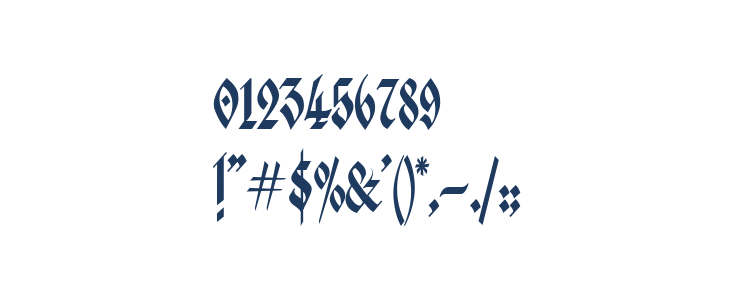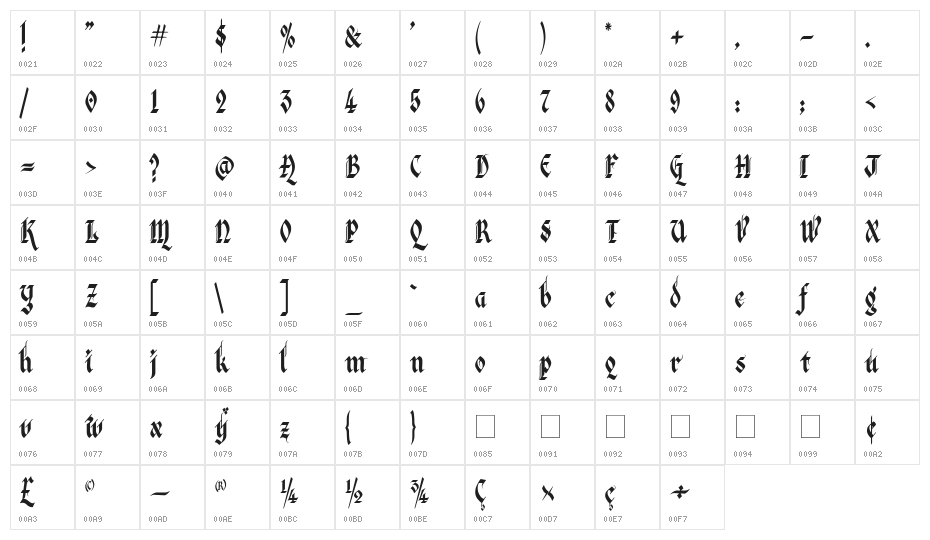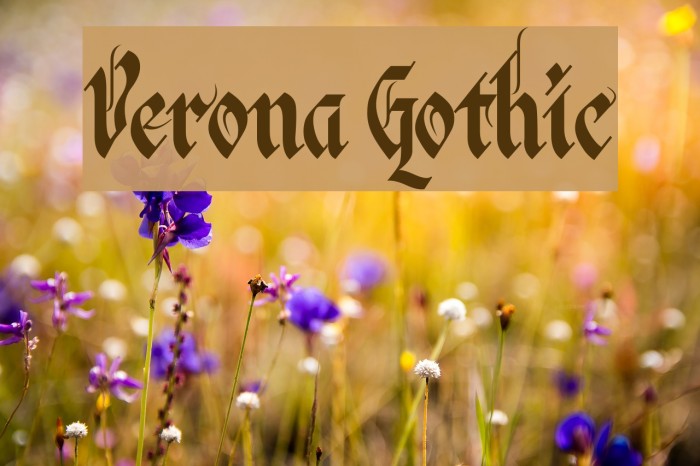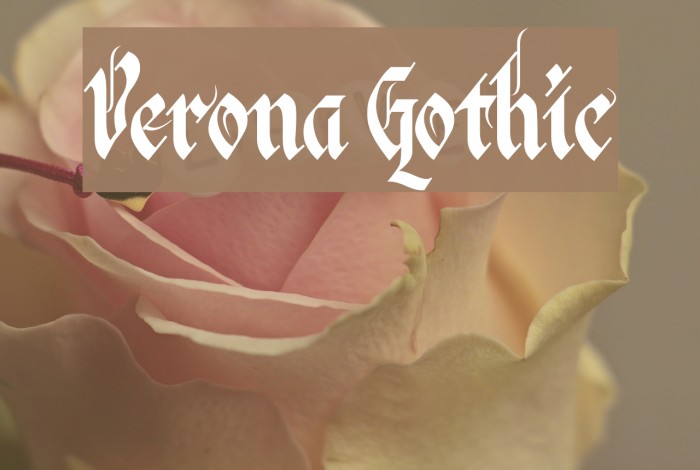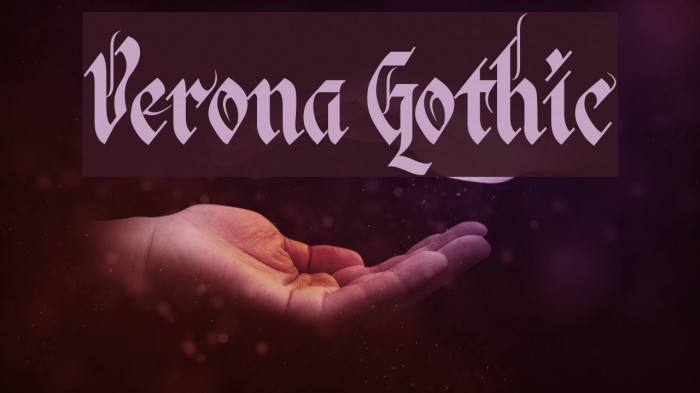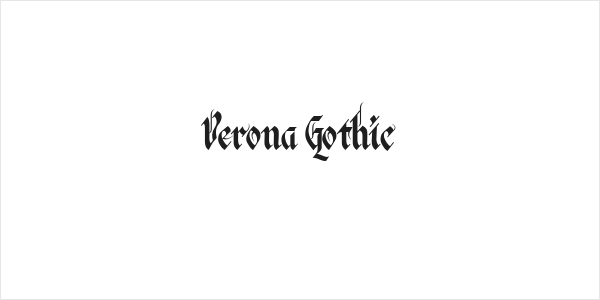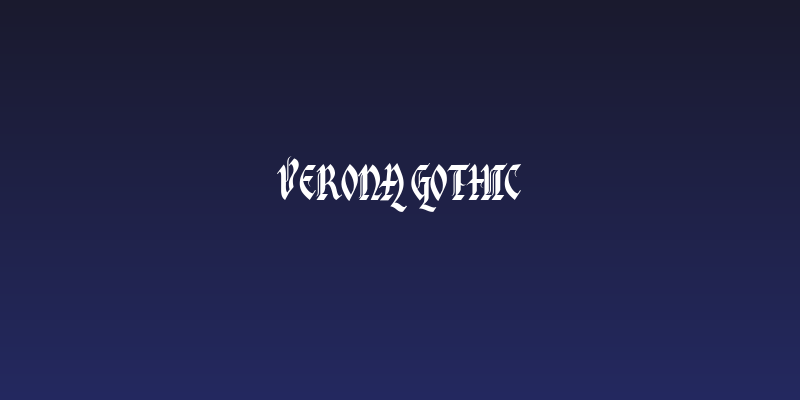
Verona Gothic Font
Verona Gothic Description
This font embodies the classic elegance of traditional Gothic script with its intricate and ornate letterforms. The characters are sharply defined with dramatic strokes and pointed serifs, creating a sense of historical gravitas. The uppercase letters are particularly elaborate, featuring angular lines and decorative flourishes that evoke a medieval aesthetic. Lowercase letters maintain the same level of detail, ensuring consistency throughout the typeface. The numerals and special characters are designed with the same attention to detail, making them suitable for a variety of applications where a touch of old-world charm is desired.
Overall StyleVintage
Proposed ProjectsIdeal for historical documents, themed event invitations, book covers, or branding that requires a medieval or vintage touch.